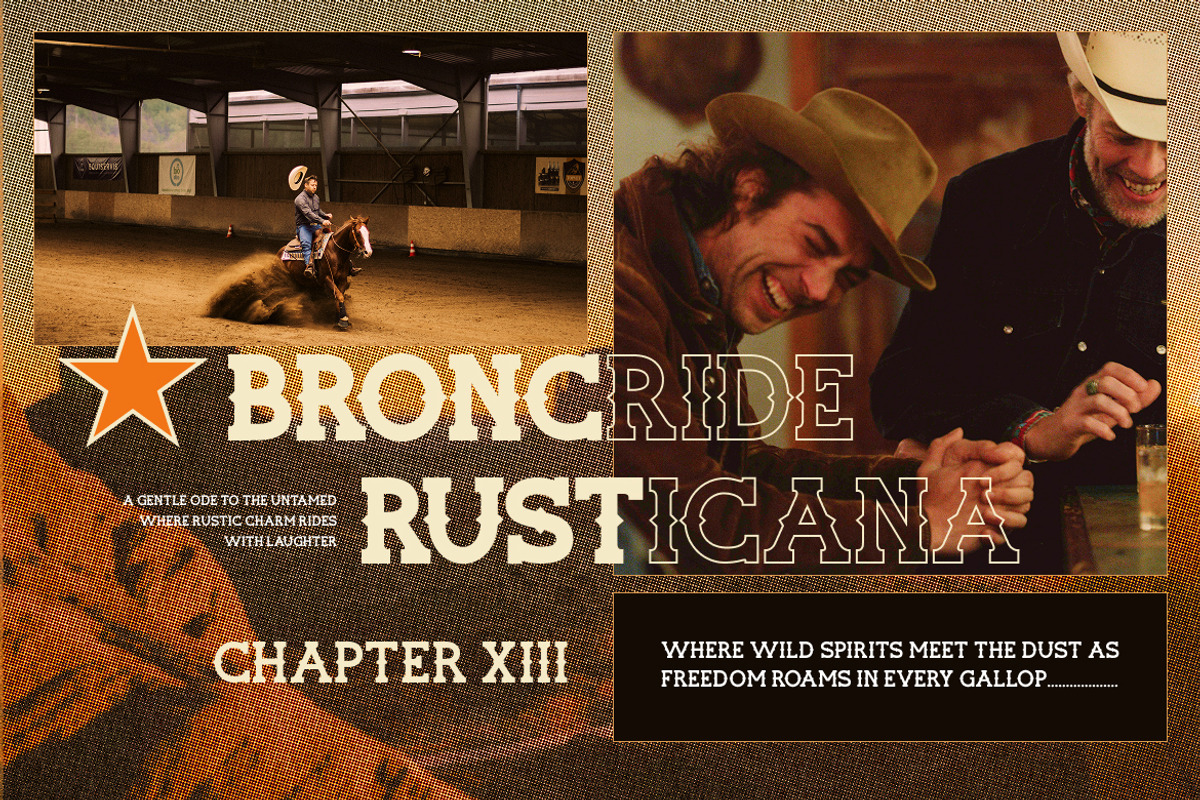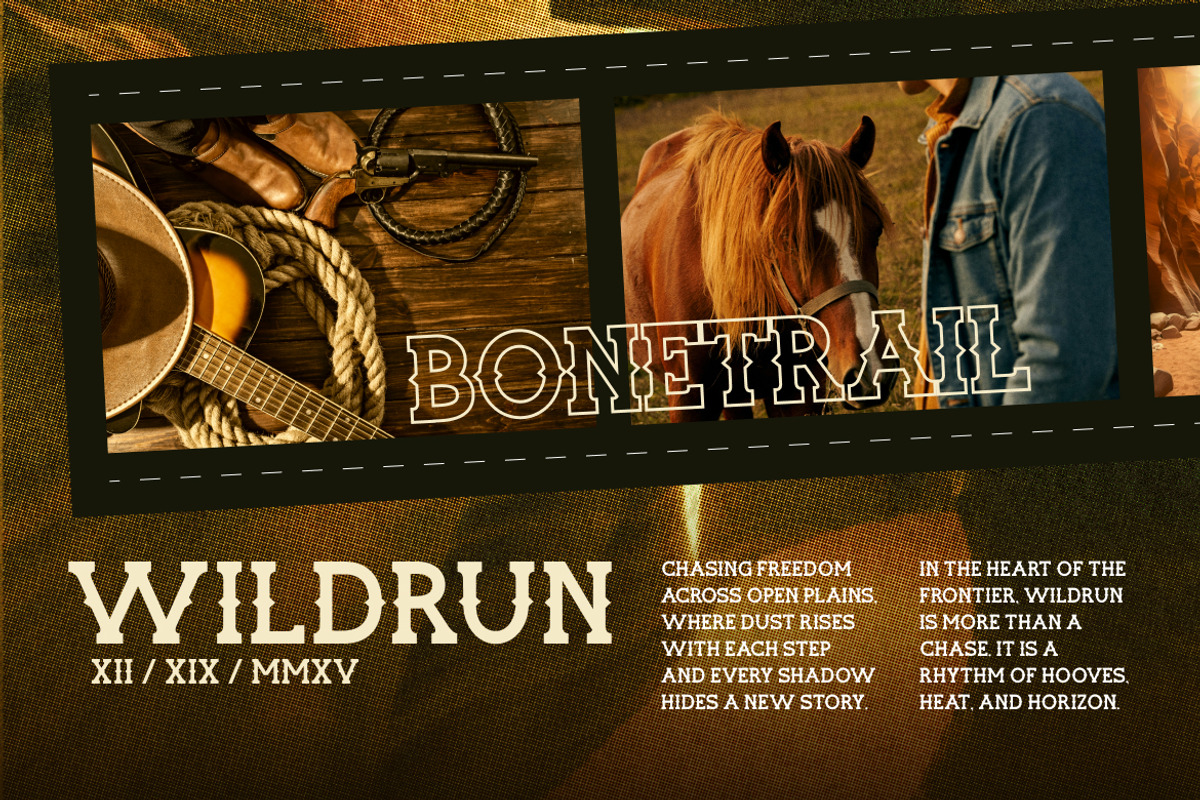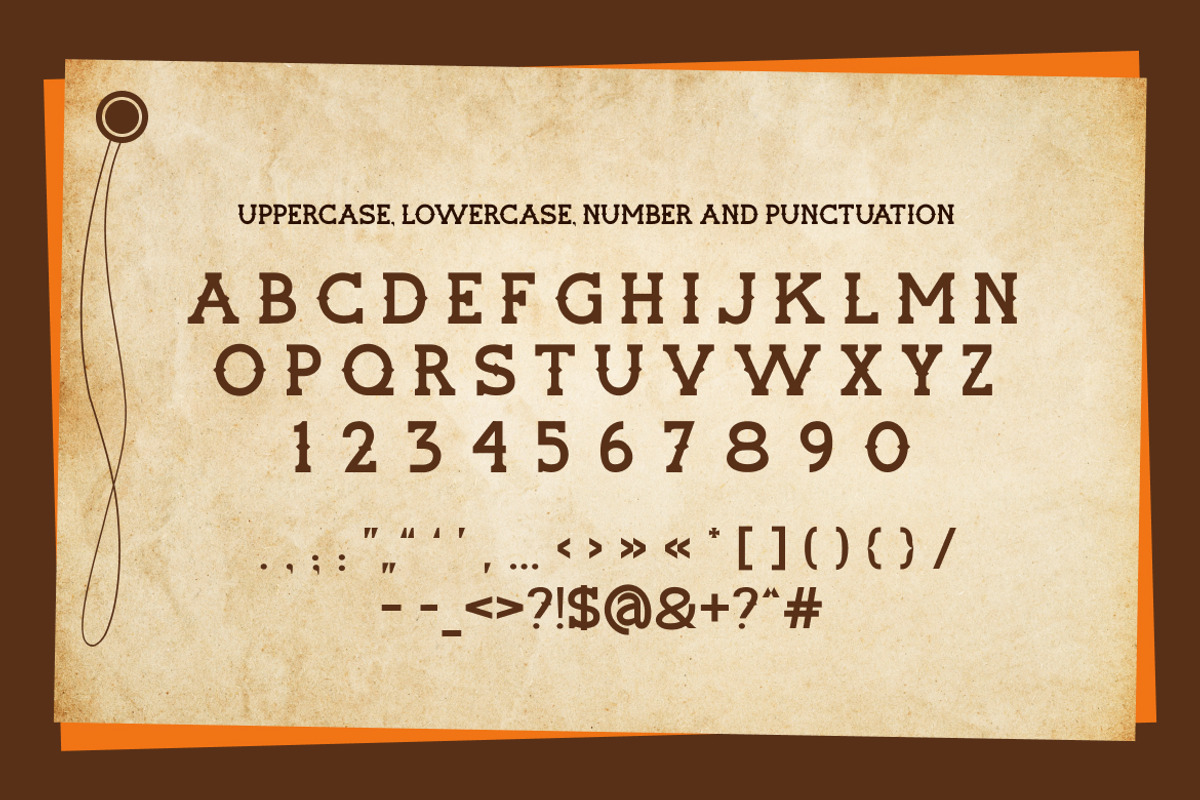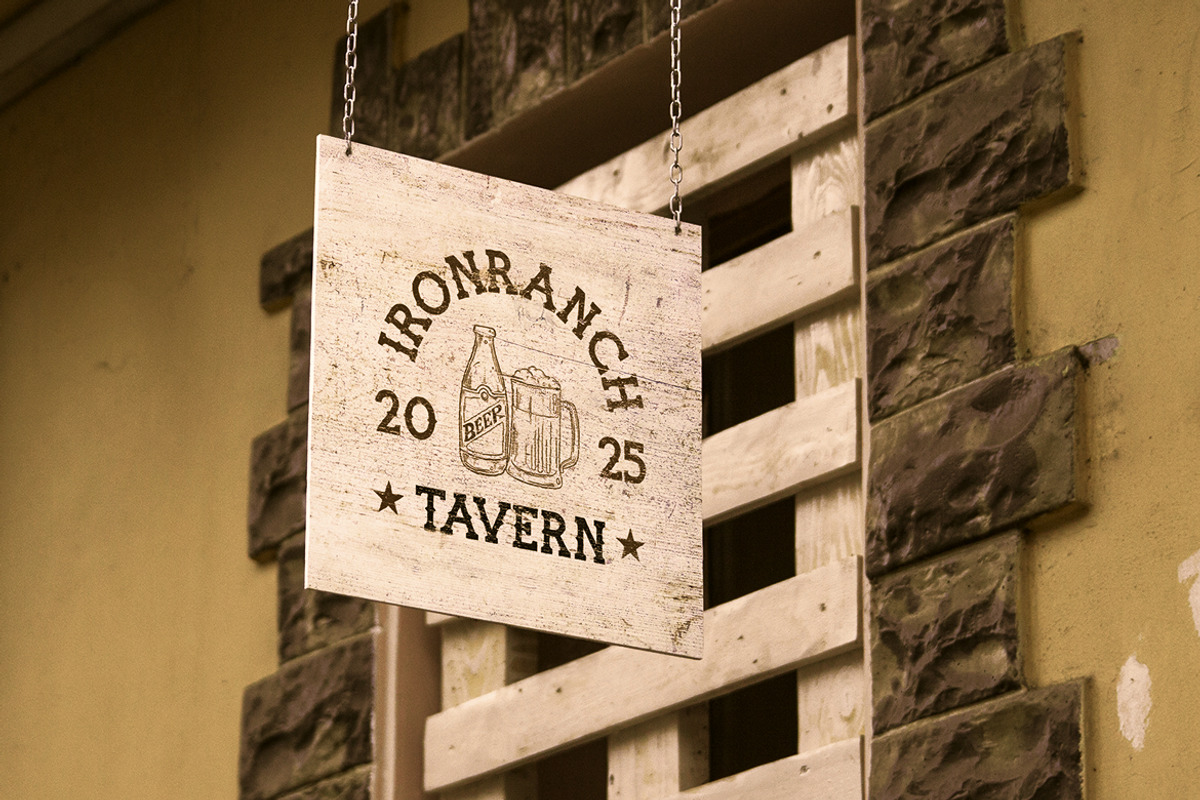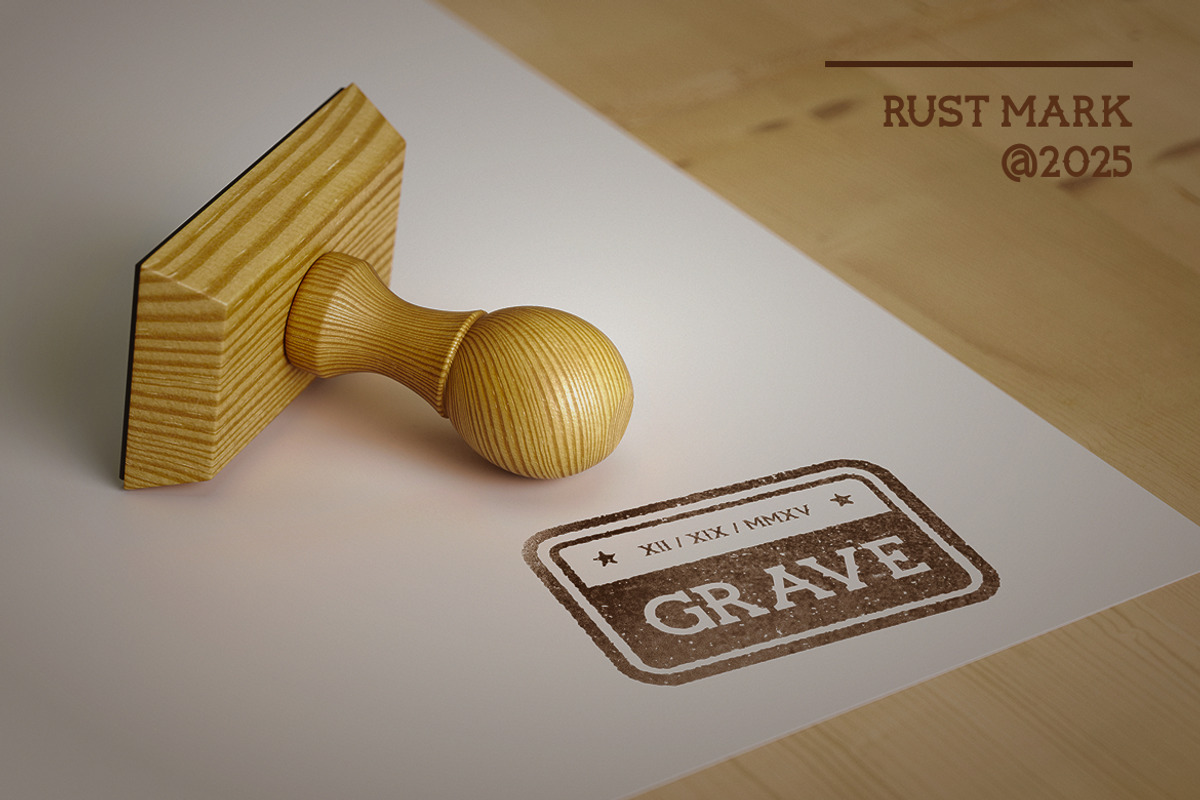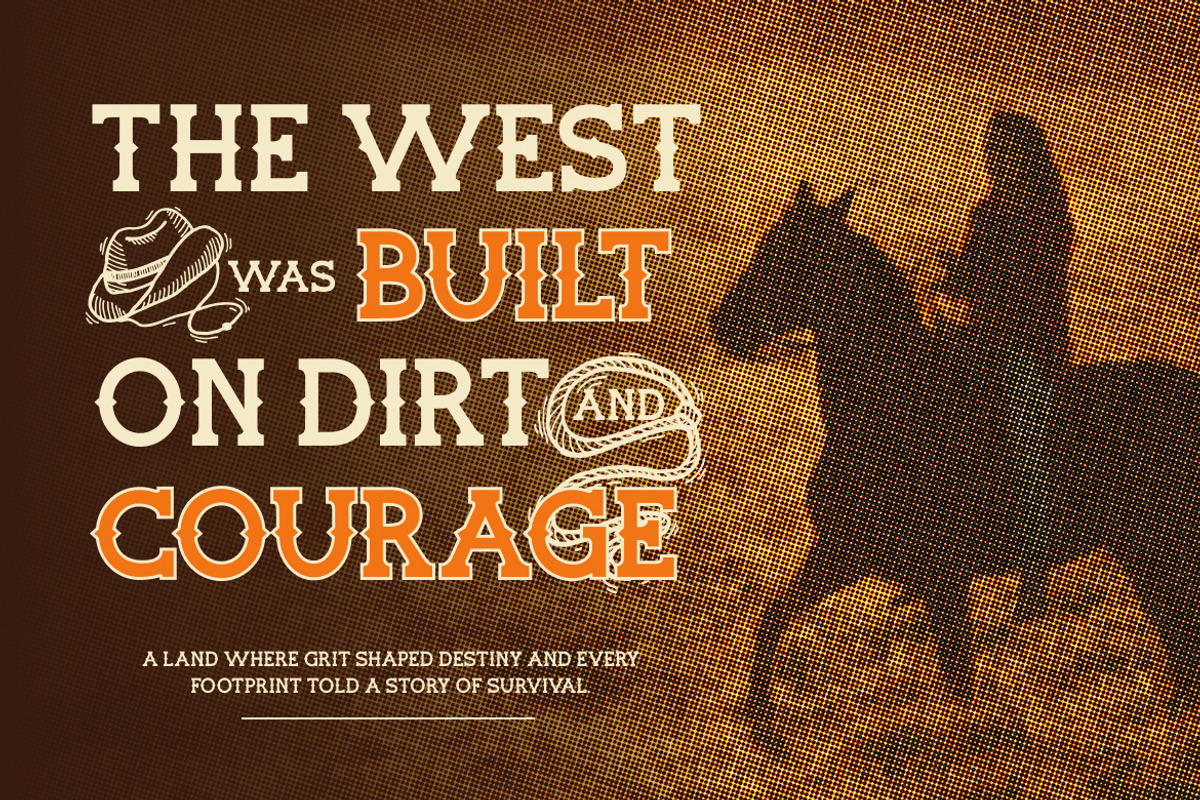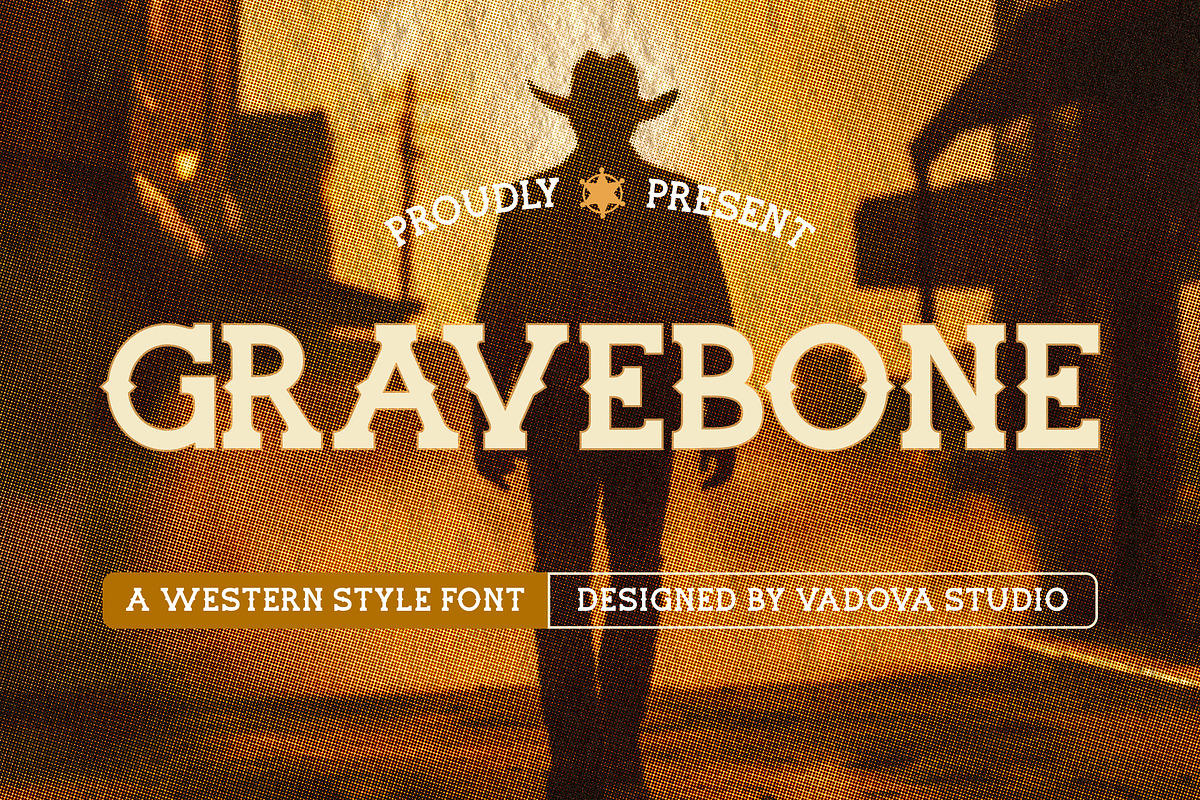
Gravebone Western Style Font
Gravebone is a vintage western display font inspired by classic frontier typography and old saloon signage. The letterforms feature bold slab-style structures with distinctive decorative terminals that reflect the rugged character of Wild West design. This typeface includes uppercase letters, lowercase letters, numerals, and punctuation characters, providing essential typographic support for themed projects.
This font is relevant for creative projects that require authentic western and vintage frontier typography. It works well for cowboy posters, western movie titles, rustic branding, ranch logos, country festival graphics, vintage signage, themed merchandise, and entertainment visuals where classic Wild West aesthetics create a strong thematic identity.
- Vintage western-inspired letterforms with decorative slab-style serifs
- Distinctive spur and bone-like terminals reflecting classic cowboy typography
- Bold strokes creating a rugged and rustic frontier character
- Slightly ornamental curves that enhance the old west aesthetic
- Balanced spacing designed for strong western-style display headlines
- Western-themed branding and cowboy-style logo design
- Vintage Wild West posters and movie title graphics
- Country music festival posters and rustic event promotions
- Ranch, saloon, and frontier-themed merchandise design
- Retro packaging and branding with a classic western aesthetic
Gravebone create bold vintage cowboy typography